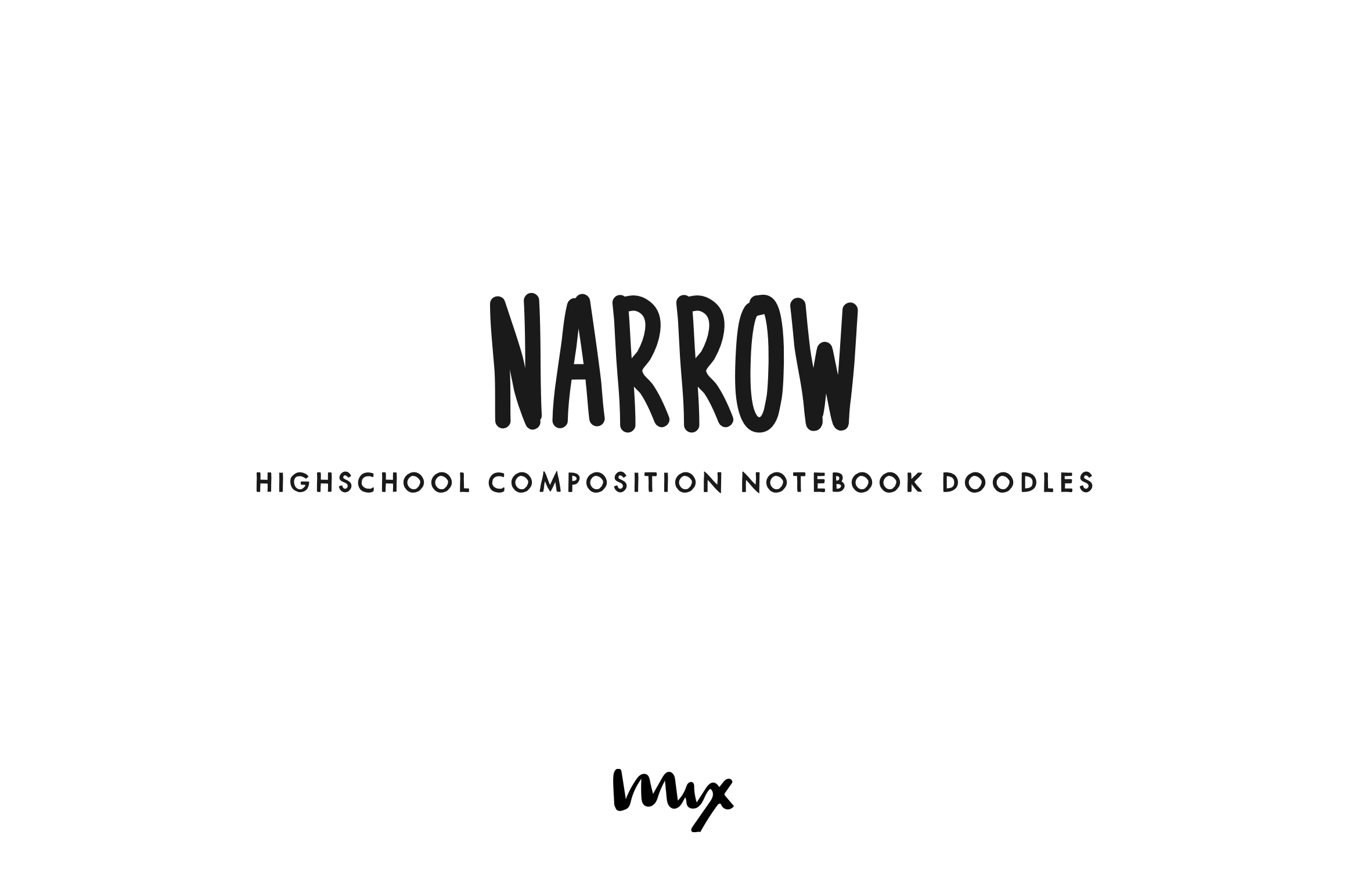
Narrow – A Handwritten Font
MIX NARROW is a typeface meant to replicate the doodles in your high school composition notebook. This clean handwritten typeface is perfect for handmade and DIY themed projects.
Comes in two weights: Regular, and Lite
Includes the following characters:
ABCDEFGHIJKLMNOPQRSTUVWXYZ
abcdefghijklmnñopqrstuvwxyz
0123456789 !@$#%^&*()`\~
+=[]:;'",.|/?{}“”‘’-_…